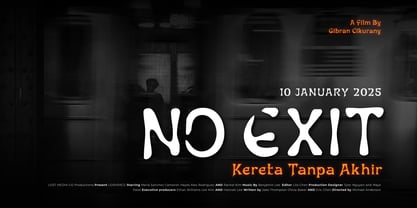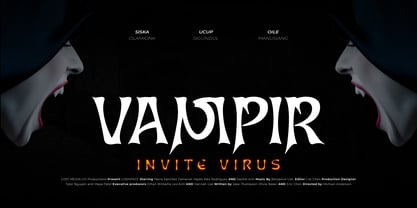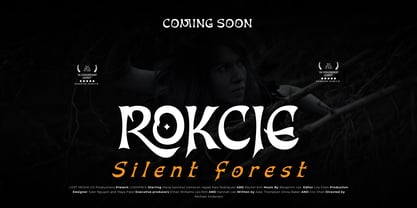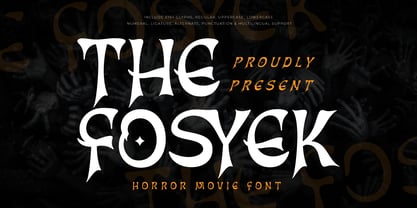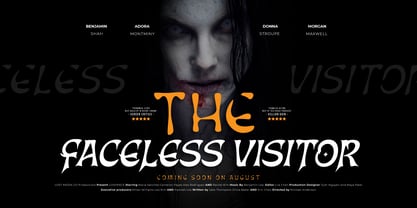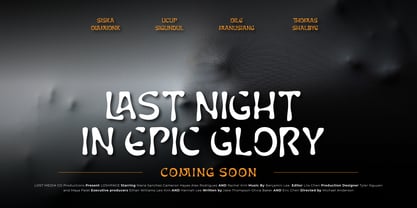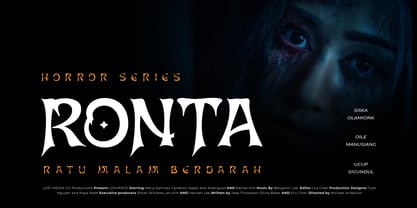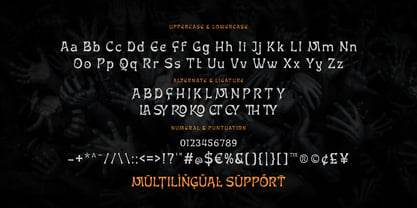
The Fosyek is a haunting horror movie font that brings a chilling atmosphere to your designs. With sharp strokes, distorted edges, and a sinister personality, this font is crafted to evoke tension, fear, and suspense—making it the perfect choice for horror-themed projects.
Every letter in The Fosyek feels like it’s been torn from a nightmare. Its irregular, jagged forms reflect the chaos and unpredictability often found in horror stories. Whether you're designing movie posters, book covers, YouTube thumbnails, or Halloween invitations, this font delivers a terrifying impact that viewers won't forget.
Ideal for titles and headers, The Fosyek grabs attention and sets the mood before your audience reads a single word. Its cinematic feel makes it especially effective in visual media, giving every project a dark and gripping edge.